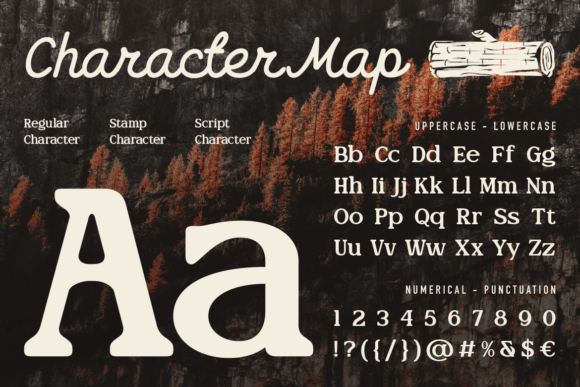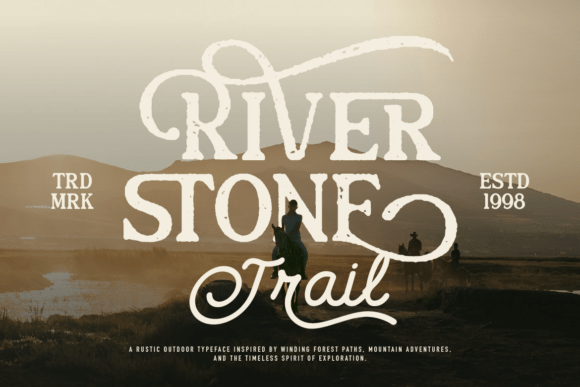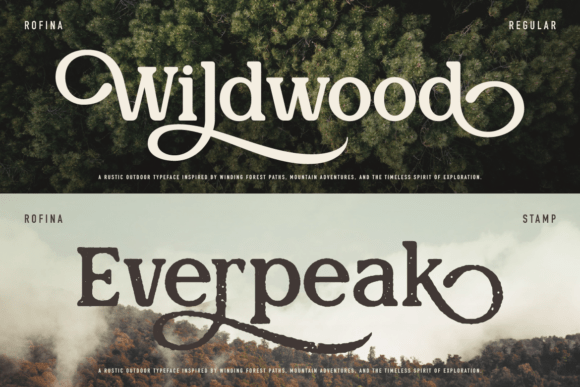
Introduction to Rofina Font
Rofina is a font duo that combines a strong serif with a soft, flowing script.
It’s designed to feel balancedβ€”structured but not stiff, expressive but still easy to read The serif comes with a solid, confident look, while the script adds a more relaxed and personal touch.